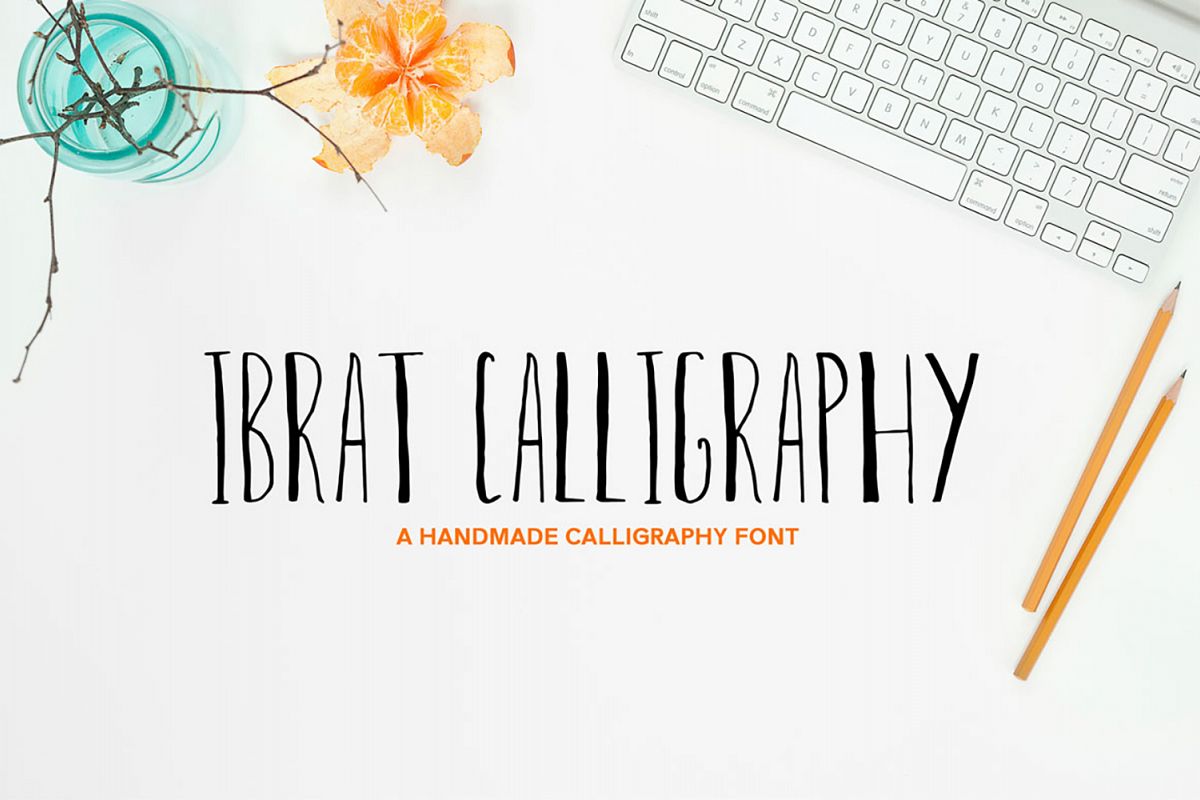
Ibrat Calligraphy Font
Ibrat Calligraphy Regular
Ibrat Calligraphy Outline
Ibrat Calligraphy is perfect for adding a personal touch to all of your design projects. Great for cards, invitations, t-shirts, logos, quotes, apparel, advertising, image overlays, greeting cards, web banners, and brandingYour will receive 2 font files:Ibrat Calligraphy Regular • This font is only in uppercase with numbers.Ibrat Calligraphy Outline • This one is in outline, you can use it creating product displays.
• Uppercase Letters
• Numerals
• Punctuation and Special Characters